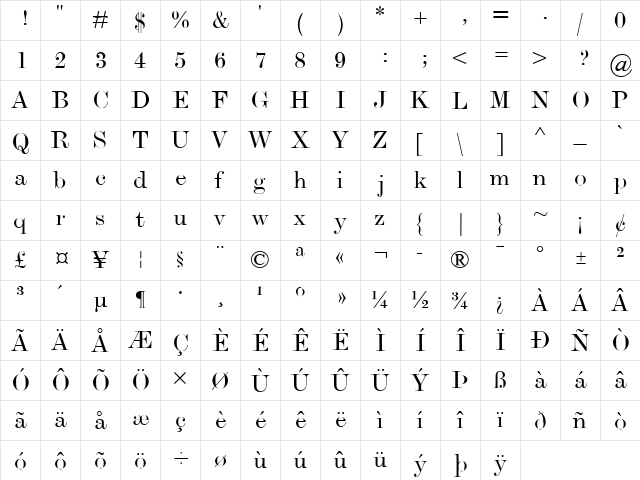
Pitabek Regular
| Designer | Chris Harvey |
Design Context for Pitabek Typeface
Pitabek offers clean, dependable letterforms without strong stylistic allegiance, making it a practical choice for designers who need flexibility.